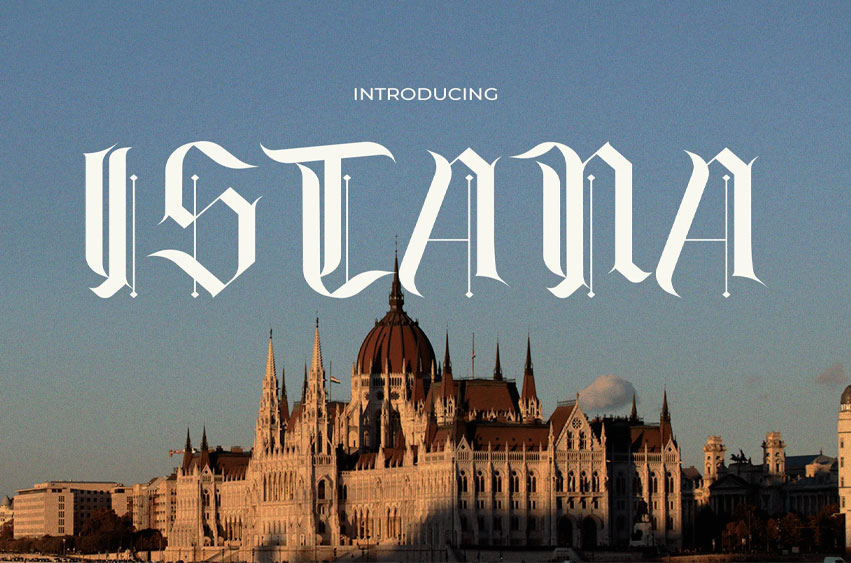
Istana Font is a gothic-style display font inspired by medieval architecture, royal symbolism, and ancient scripts. With its sharp verticals, pointed serifs, and dramatic contrast, ISTANA exudes nobility and boldness. The letterforms blend sharp elegance with classic blackletter cues, giving it an expressive and authoritative tone.
Perfect for movie titles, game logos, medieval event posters, or luxury branding, ISTANA stands out with refined aggression. The font’s structure features ornamental strokes, sharp terminals, and strong proportions that draw the eye and elevate any regal or fantasy-based project.
ISTANA brings powerful emotional resonance to fantasy brands, film posters, historical drama covers, or tattoo-inspired branding. It connects deeply with viewers through its royal, mysterious, and timeless essence—ideal for projects where tone and presence matter.
Whether you’re designing a video game UI, crafting a Renaissance-era poster, or building a vintage logo, ISTANA turns words into a statement of power and poise.
- Sharp gothic-inspired letterforms with dramatic elegance
- Balanced structure with strong vertical strokes
- Suited for titles, logos, tattoo designs, and medieval-themed visuals
- Combines old-world charm with contemporary sharpness
- Highly legible at display sizes, attention-grabbing at a glance